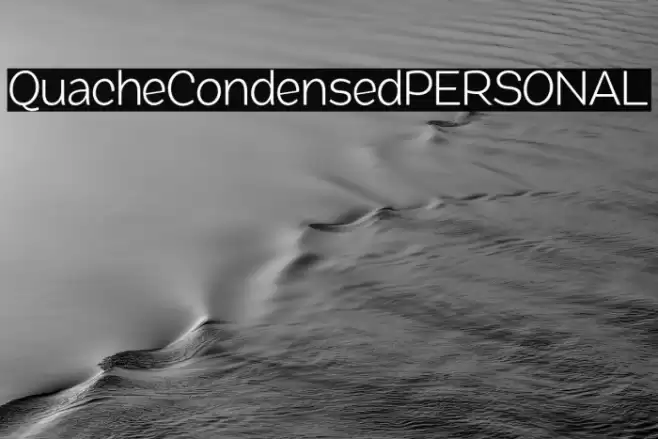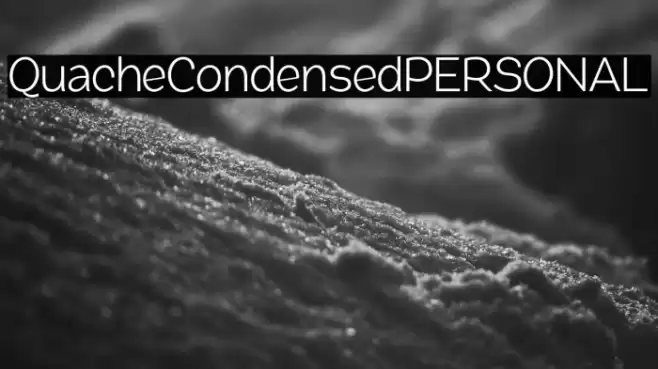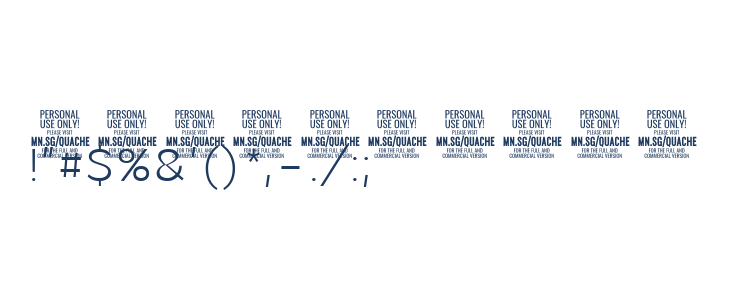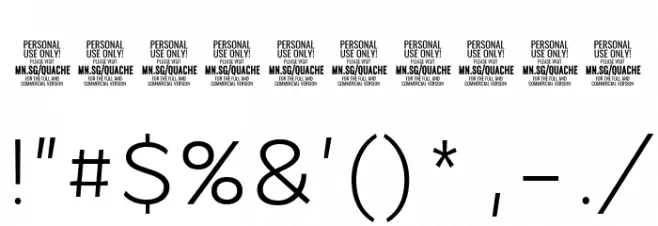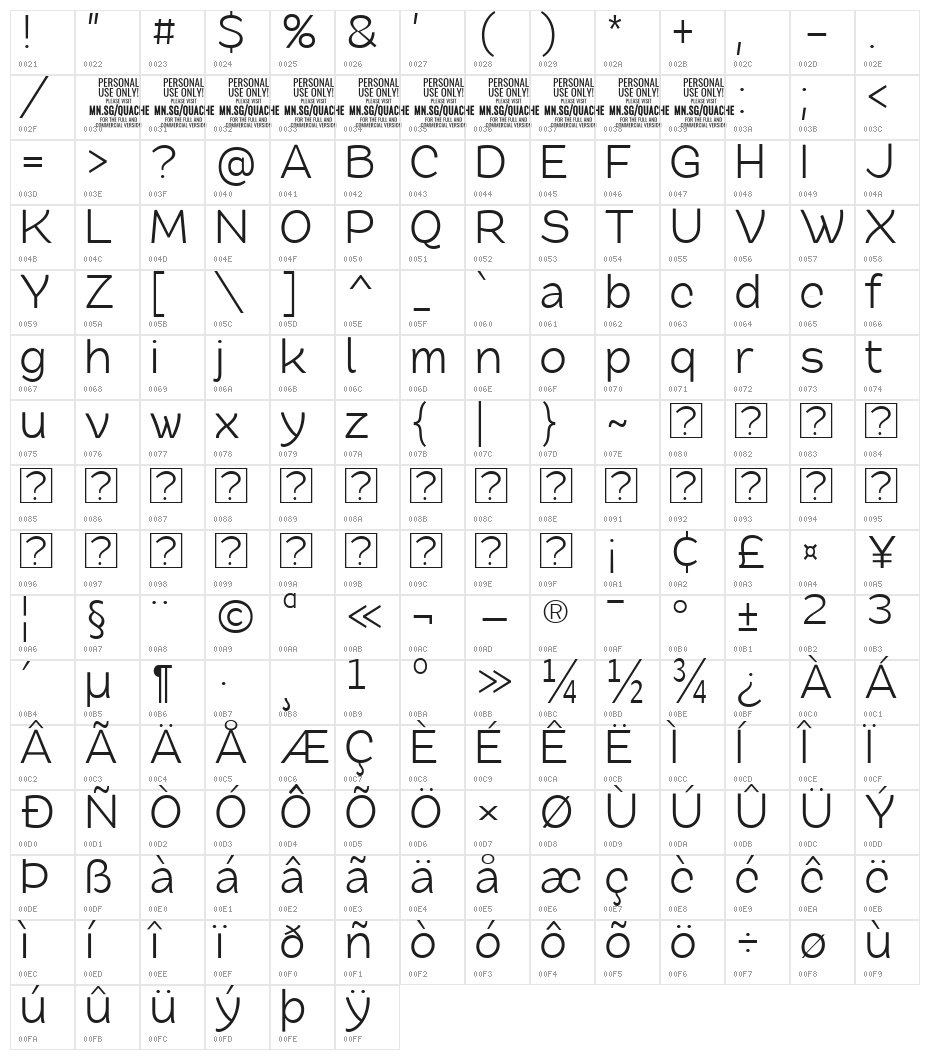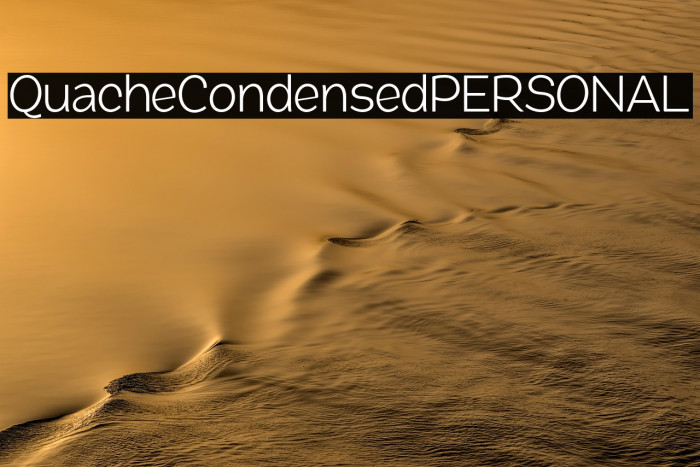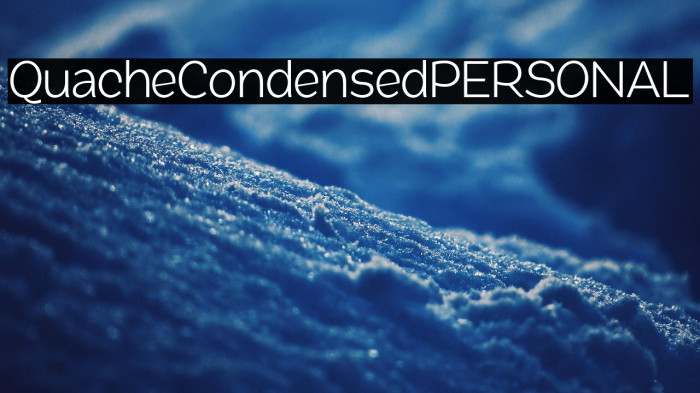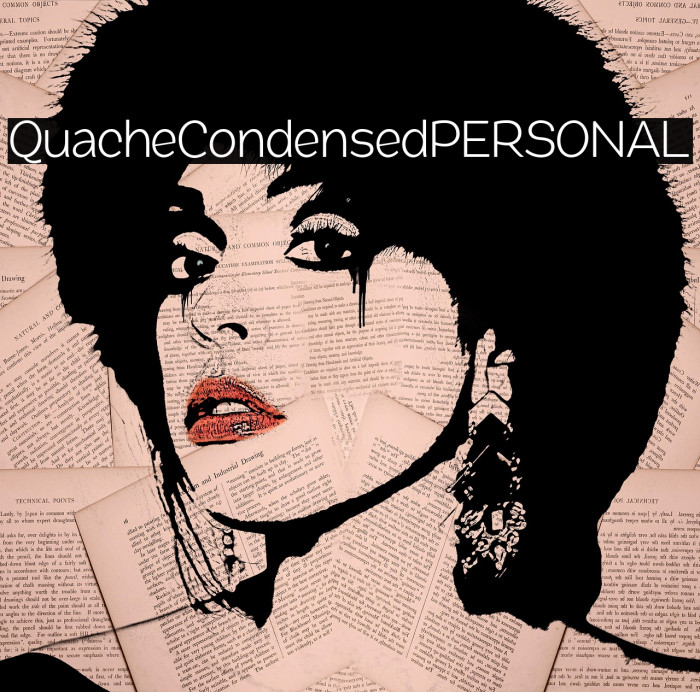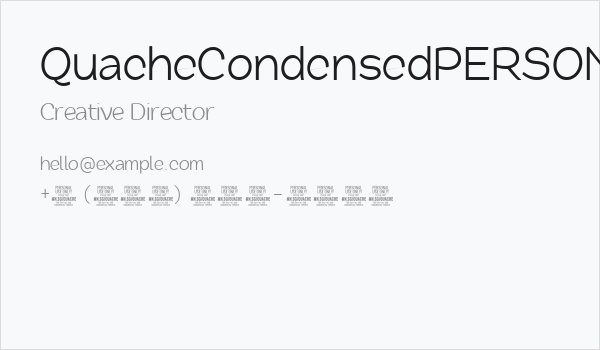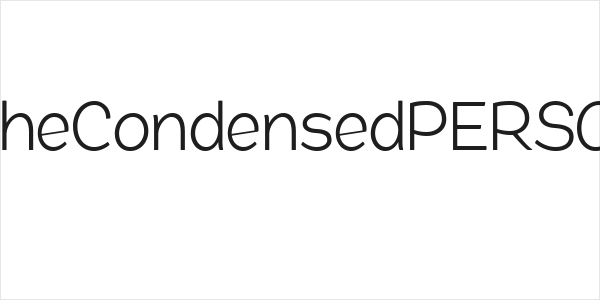
QuacheCondensedPERSONAL Font
QuacheCondensedPERSONAL Description
This font features a clean and modern sans-serif design with a condensed structure, making it ideal for space-saving applications. The characters are uniformly styled with a consistent stroke width, providing a sleek and professional appearance. The uppercase and lowercase letters are well-balanced, with a slight geometric influence that enhances readability. The numerals and special characters maintain the same aesthetic, ensuring cohesive text presentation. This font is versatile and can be used in various design contexts where clarity and modernity are desired.
A modern, condensed sans-serif font with a clean and professional look from Regular fonts.